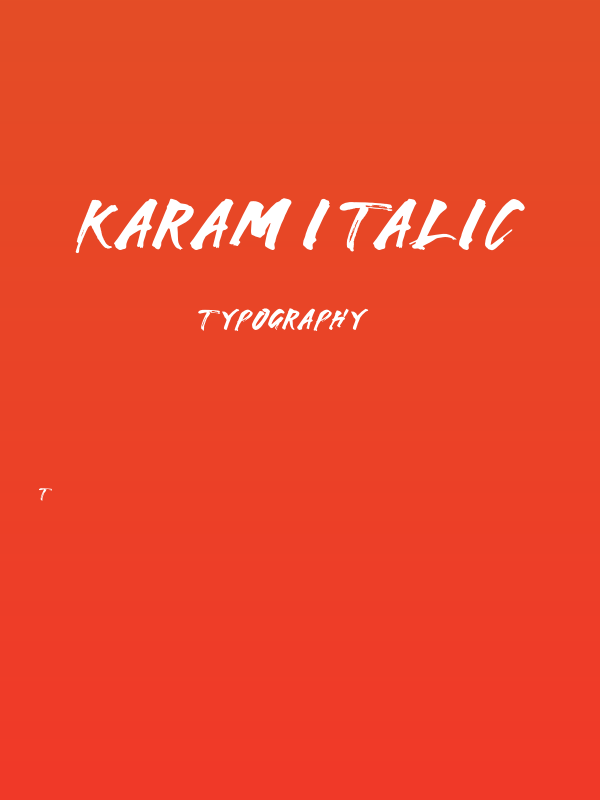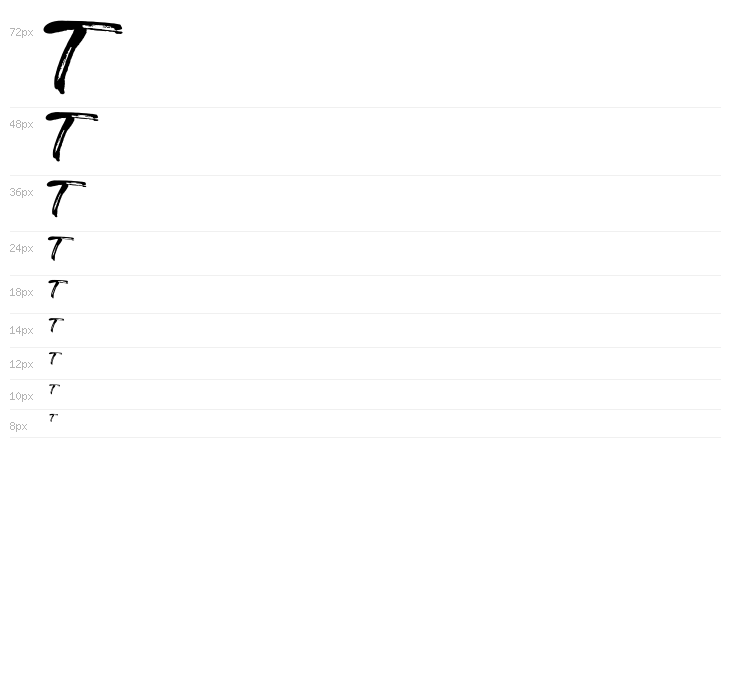
Karam-Italic Font
Karam-Italic Description
This font features a bold, energetic style with a brush-like texture that gives it a dynamic and expressive appearance. The strokes are uneven, adding a sense of movement and spontaneity. The uppercase letters are prominent and impactful, making them suitable for attention-grabbing designs. The overall look is artistic and modern, with a touch of edginess that makes it stand out. The font's unique character is perfect for creative projects that require a bold statement.